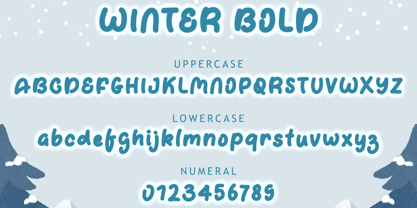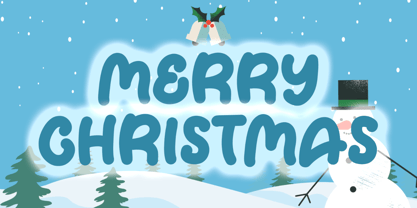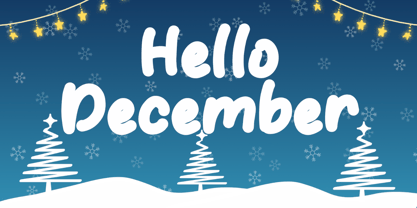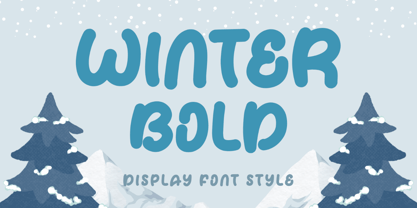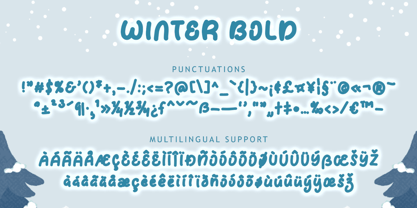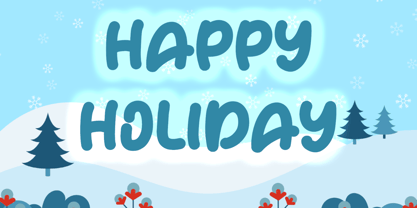
Winter Bold
by Yoga Letter
The Winter Bold Font Family was designed by Isroni Yoga Prasetya and published by Yoga Letter. Winter Bold contains 1 styles. More about this family
“Winter Bold” is a cute display font. It comes with capital letters, lowercase letters, numbers, punctuation, and multilingual support. It is perfect for use on Christmas, winter, holidays, banners, posters, prints, banners, posters, logos, comics, cartoons, Easter, back to school, and more.
Designers: Isroni Yoga Prasetya
Foundry: Yoga Letter